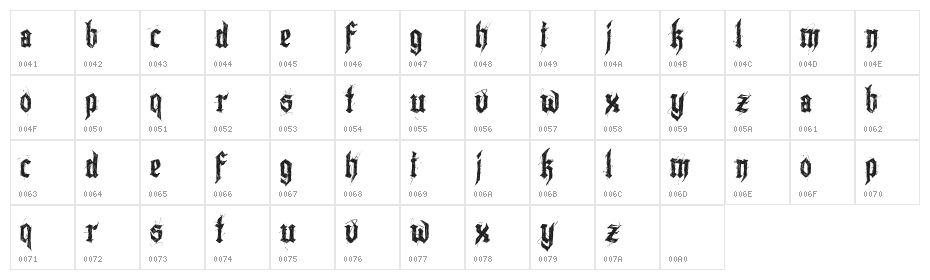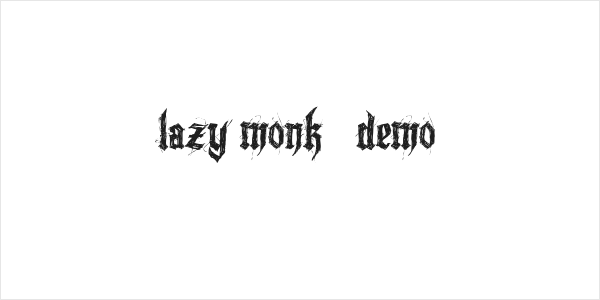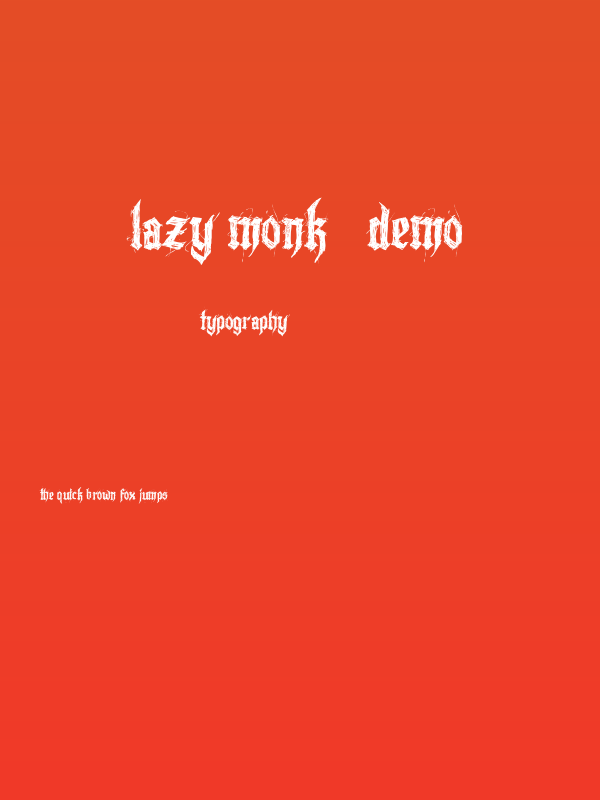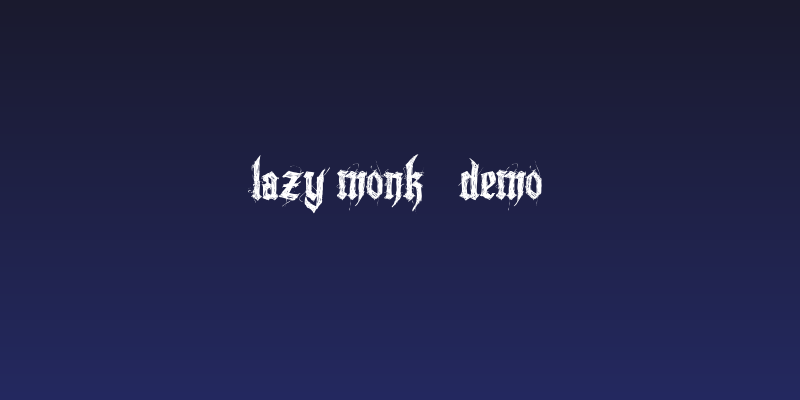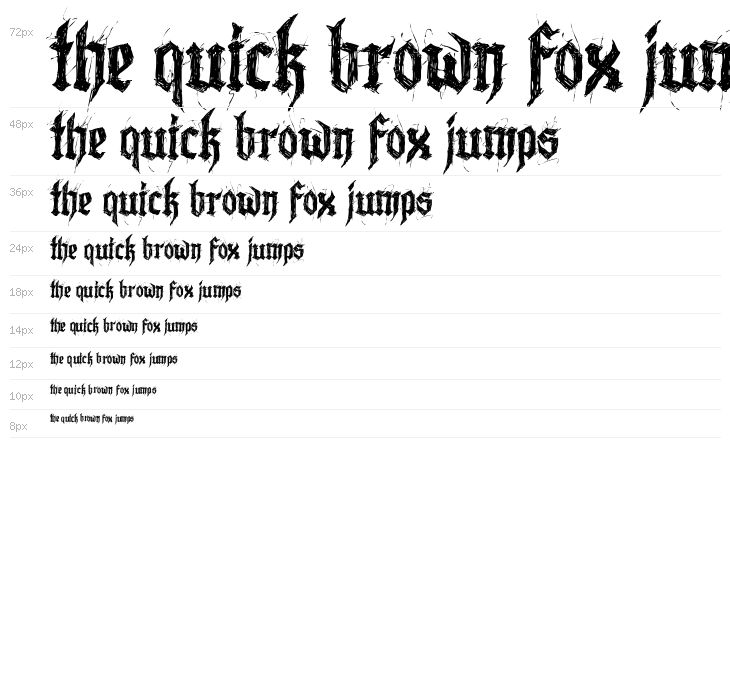
Lazy Monk - Demo Font
Lazy Monk - Demo Description
This font features a highly decorative and intricate design, reminiscent of traditional blackletter styles with a modern twist. The characters are bold and striking, with sharp angles and a distressed texture that gives them a rugged, edgy appearance. Each letter is uniquely crafted, with varying line thicknesses and ornamental details that create a sense of movement and energy. The overall aesthetic is both vintage and contemporary, making it suitable for projects that require a dramatic and artistic flair.
| Proposed Projects | Ideal for album covers, posters, branding for edgy or alternative products, and any design requiring a dramatic and artistic touch. |